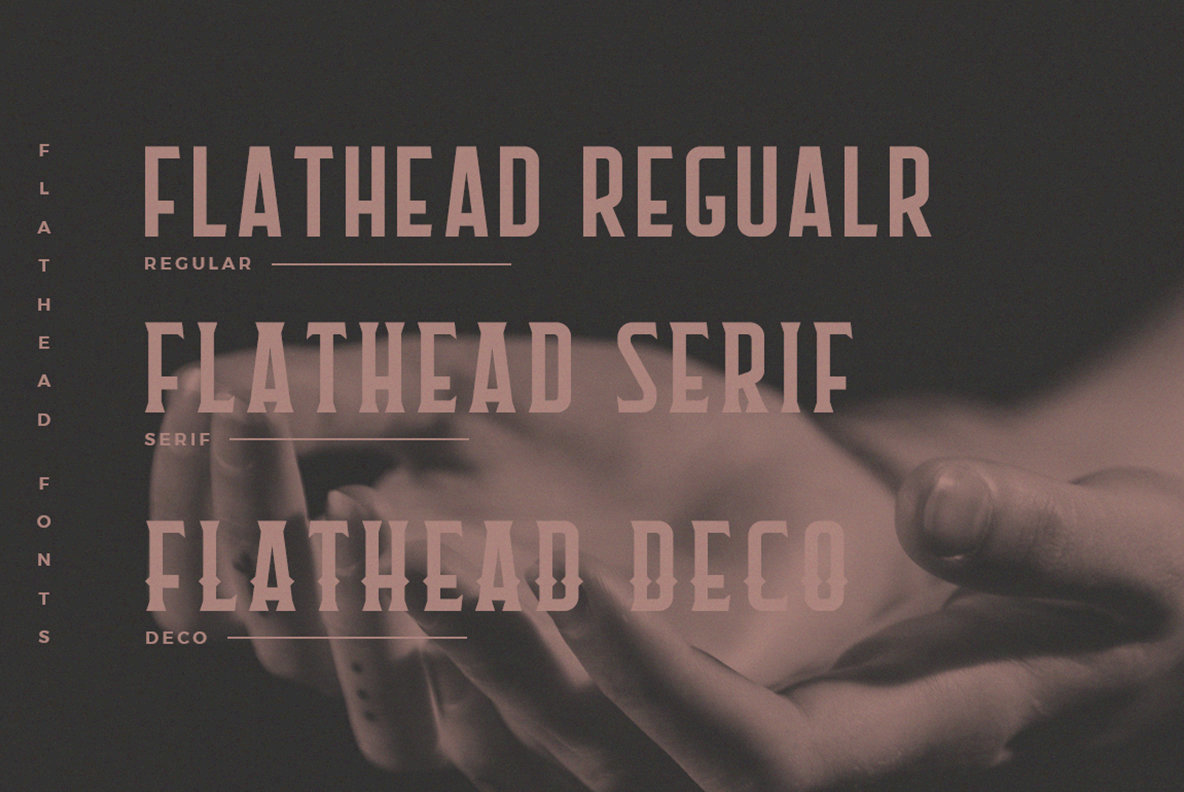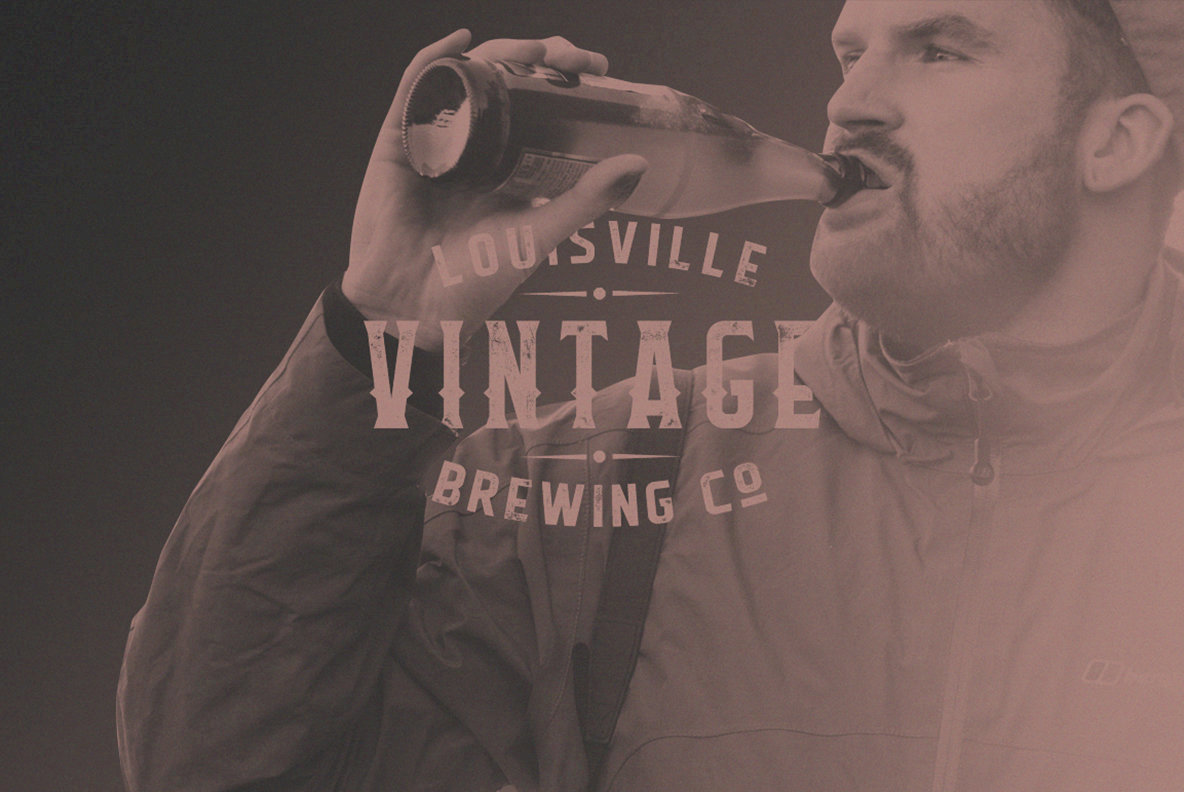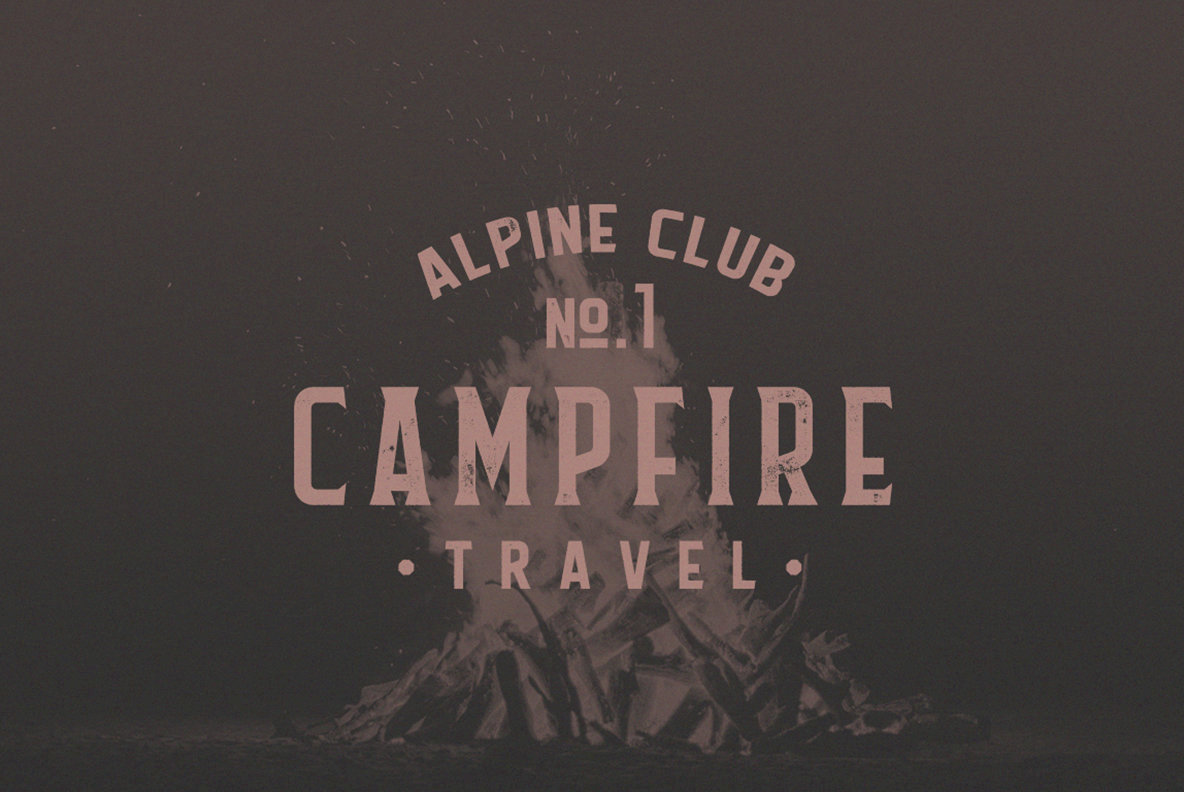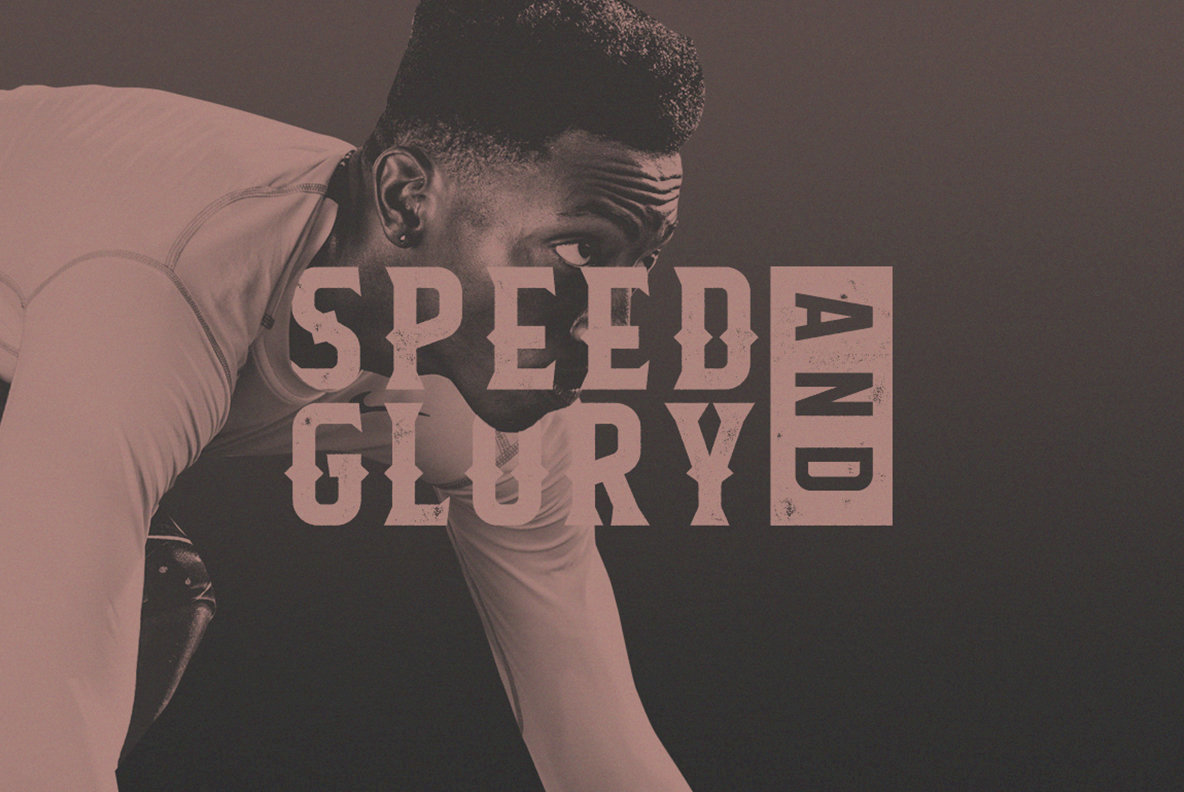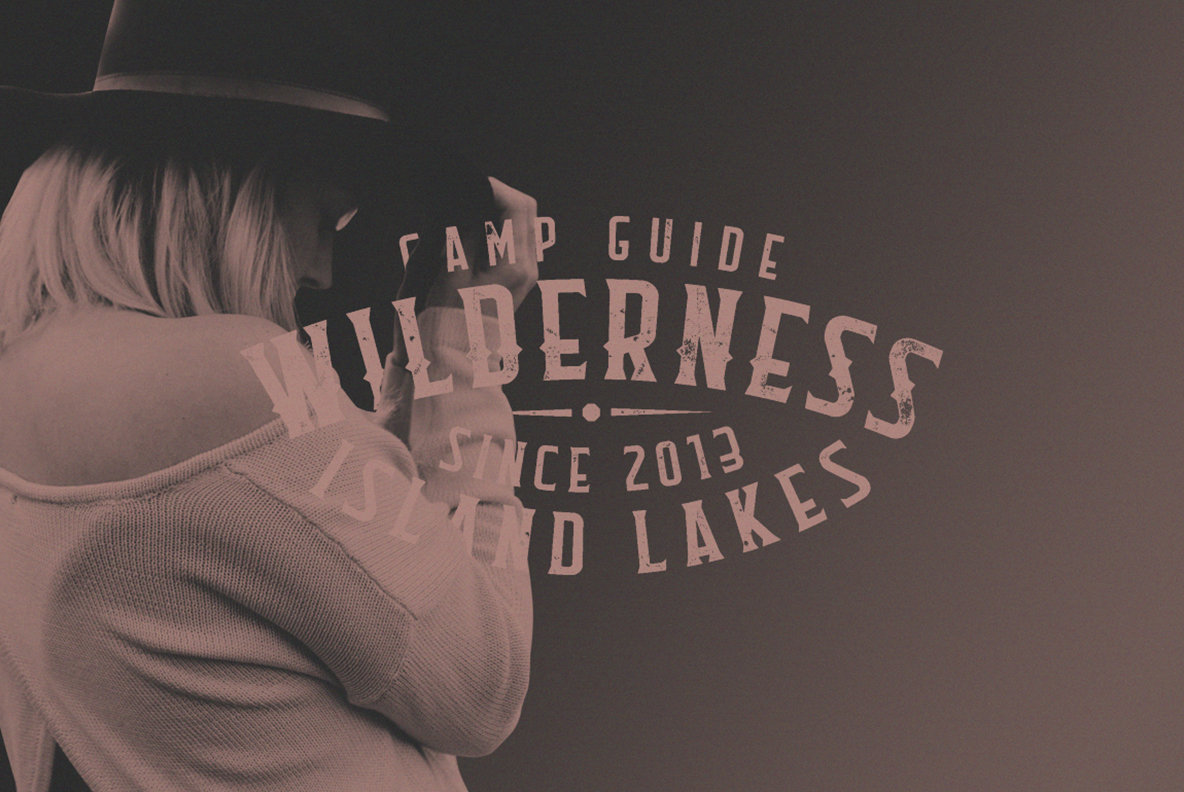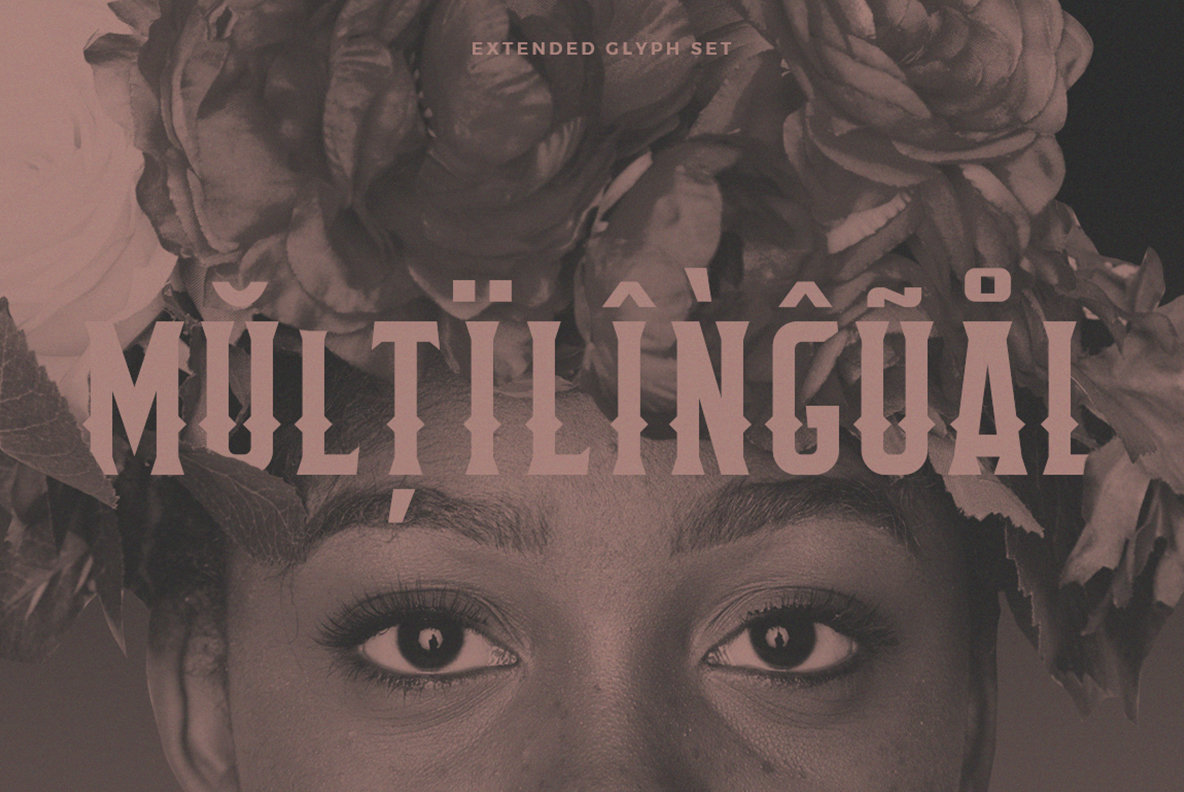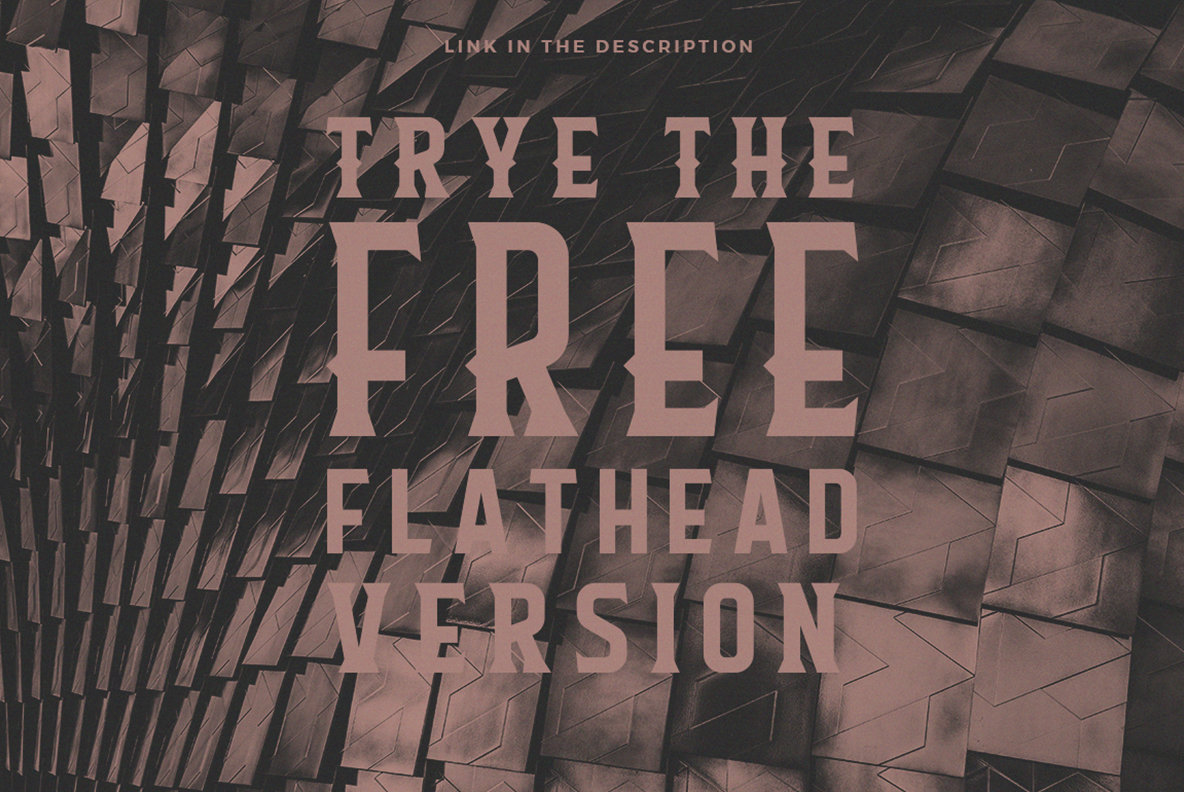
Flathead Round Font
Flathead is a decorative and retro styled font design, published by Mcraft.
HEADFONTS is an independent type foundry, established in 2014 by Mihis Alexandru, a type and graphic designer based in Timisoara, RO.HEADFONTS is producing high-quality retail and custom made typefaces, for digital media, designers and prints.The foundry hosts a number of original typefaces offering to...